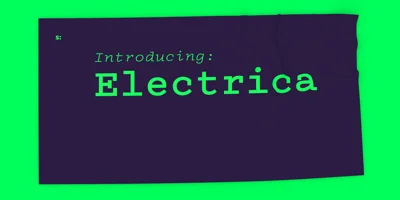
Electrica Font
Electrica Font is ideal for electrical company branding, energy industry logos, power utility signage, electronic music festival graphics, high-voltage warning materials, and electric vehicle charging station designs.
Electrica Font is exciting because it captures the dynamic power and electric energy of modern technology, delivering an energized typeface that embodies electrical innovation, sustainable energy, and the electrifying force that powers our connected world.
The Electrica Font family includes charged variations: Electrica Light, Electrica Regular, Electrica Bold, Electrica Black, voltage alternates, and decorative elements inspired by electrical circuits and power transmission systems.
Power up your designs with Electrica Font, an electrically charged typeface that brings high-voltage energy and technological power to your most dynamic design projects. This energized font excels in creating memorable branding for renewable energy companies, electrical contractors, electronic device manufacturers, and smart grid technology firms that harness electrical power to improve modern life. The dynamically designed letterforms feature sharp geometric construction with subtle electrical circuit references that communicate power, precision, and technological advancement while ensuring maximum readability across all electrical and energy applications. Perfect for electrical safety materials, power company communications, energy efficiency campaigns, and electric vehicle promotions that need to convey reliability and cutting-edge technology, this font connects with audiences who depend on electrical power for their daily lives. Each character sparks with electric precision, making every power-related message feel like a surge of energy that demonstrates technical competence and innovative thinking. Electrica Font transforms routine electrical communications into powerful statements that inspire confidence in electrical systems while promoting sustainable energy solutions that will power our electrified future.